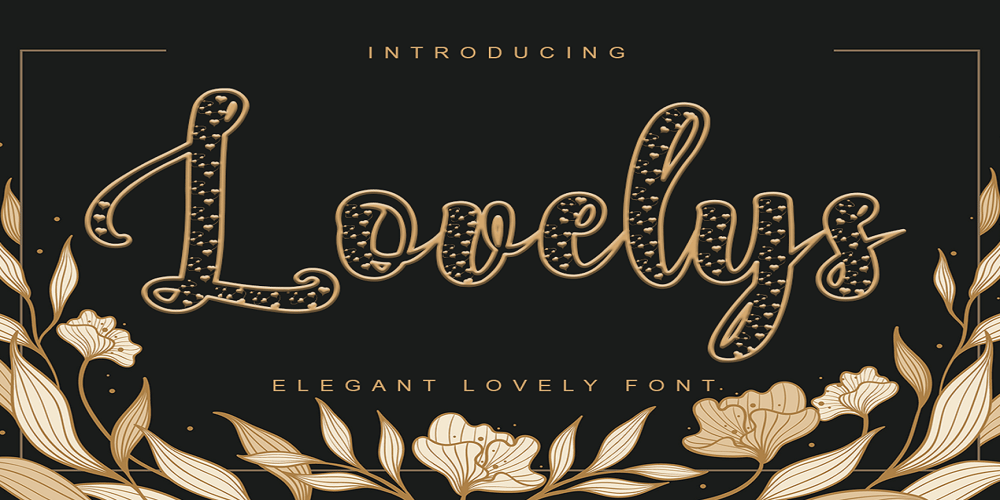
Lovelys
Lovelys font
Lovelys Font Family was designed by Saiful Anwar and published by Sealoung. Lovelys contains 1 styles and family package options. Lovelys is a superb display font with a romantic theme. Fall in love with its incredibly versatile style and use it to create gorgeous wedding invitations, beautiful stationary art, eye-catching social media posts, and much more!